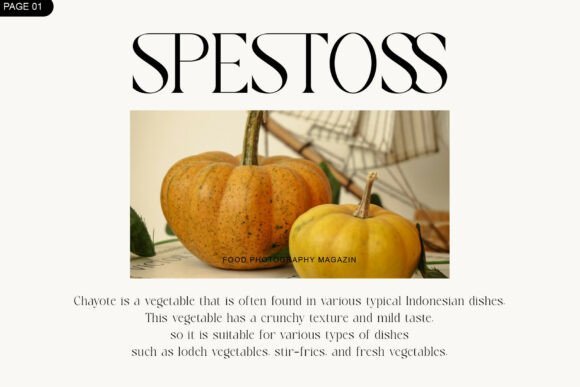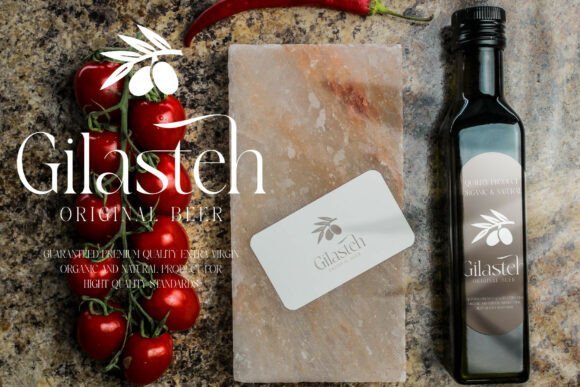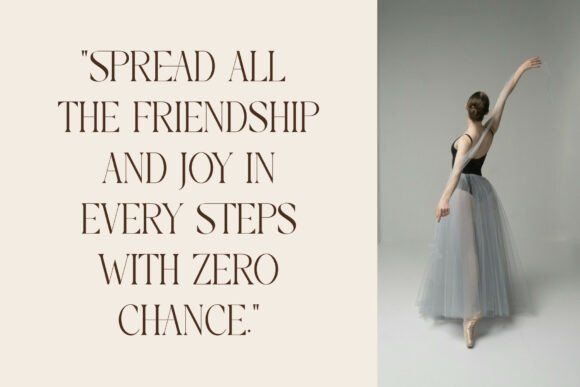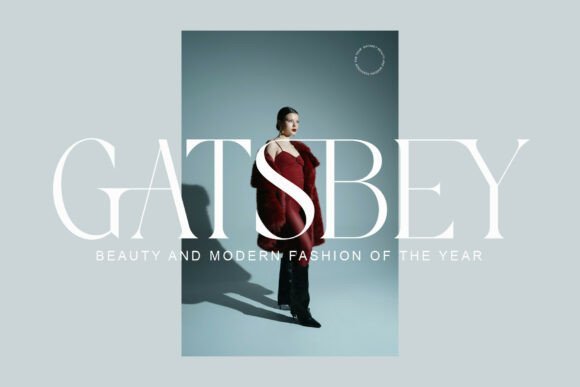
Walkist Font
Discover the pinnacle of lyrical elegance with Walkist, a new modern serif display font that balances slender silhouettes with dramatic, sweeping swashes. This typeface features high-contrast letterforms characterized by elongated, curved ascenders and airy negative spaces that evoke a sense of handcrafted beauty. Its rhythmic flow and ethereal charm make it an exceptional choice for luxury lifestyle branding, artisanal wellness packaging, bespoke wedding stationery, and chic social media headers. Walkist delivers a sense of polished prestige and effortless, nature-inspired grace to your visual communication, ensuring your message is conveyed with a serene and fashionable personality.